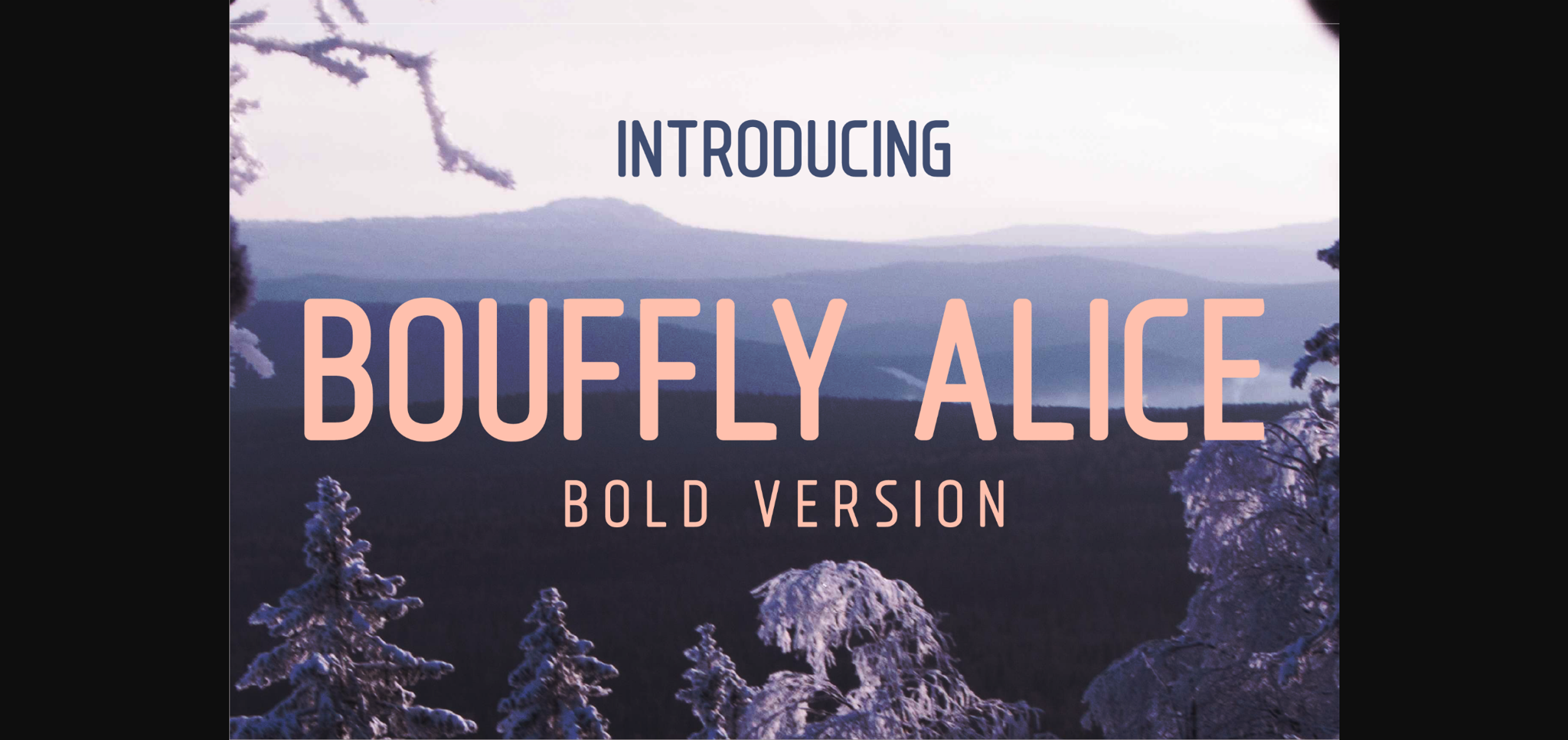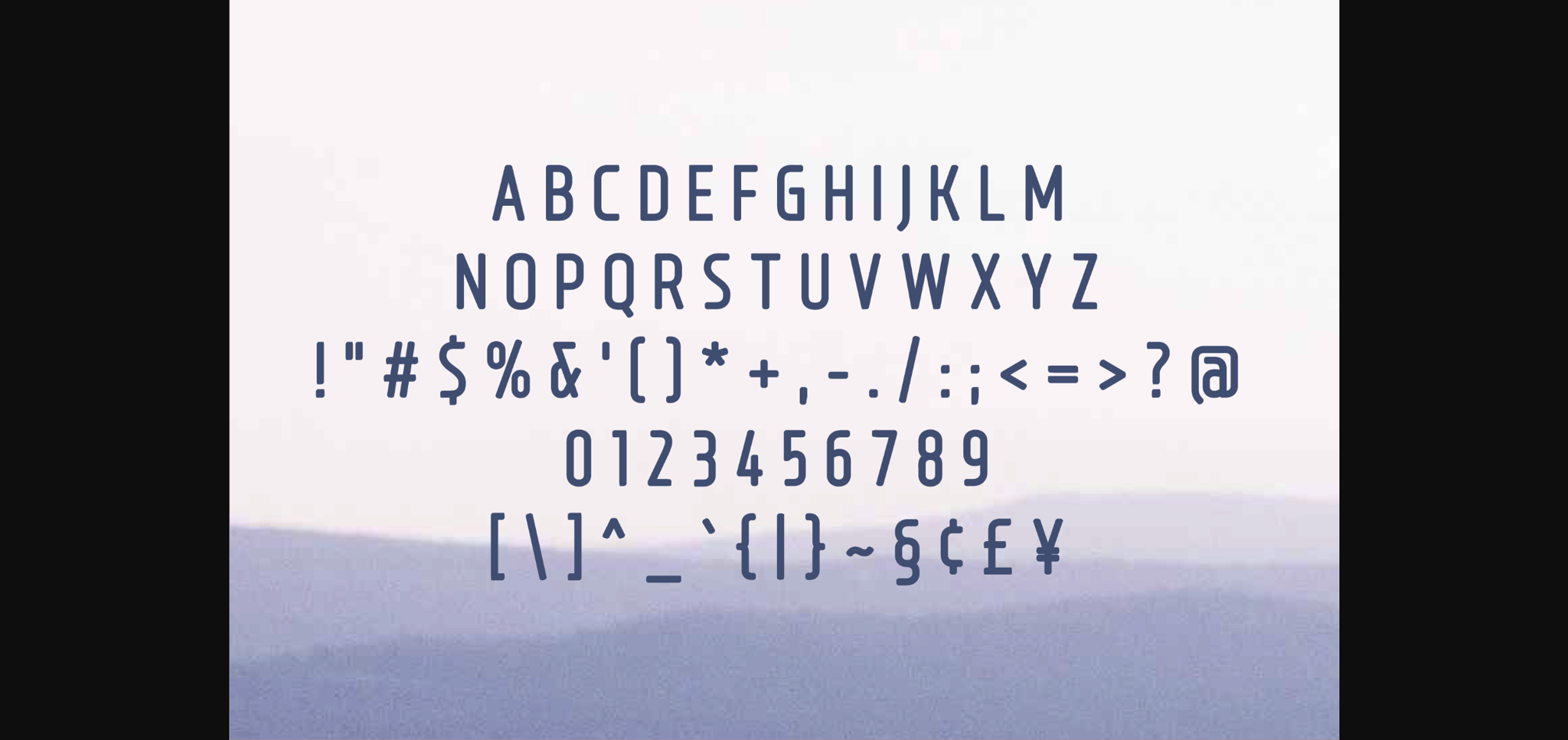
About Bouffly Alice Bold Font
Bouffly Alice Bold is a strong and charming sans serif font with a timeless feel. Get inspired by its elegant simplicity!